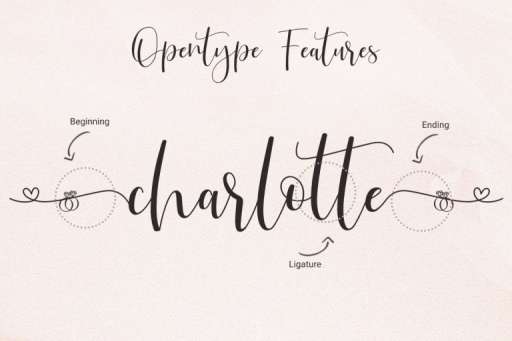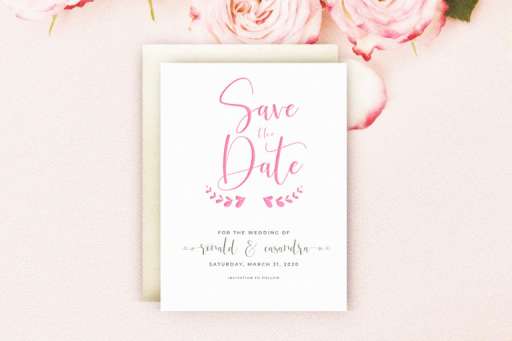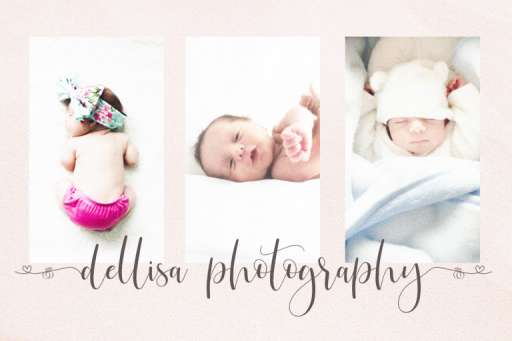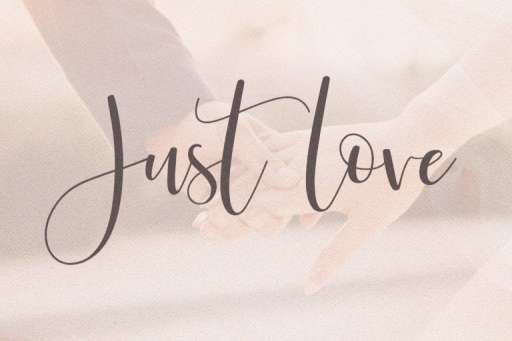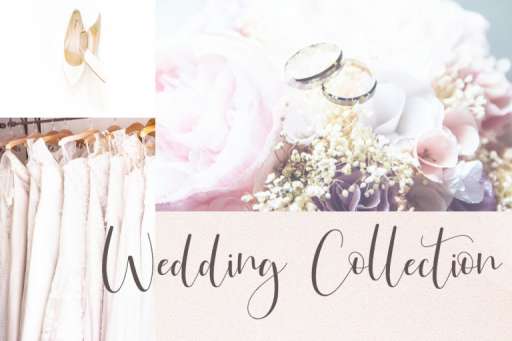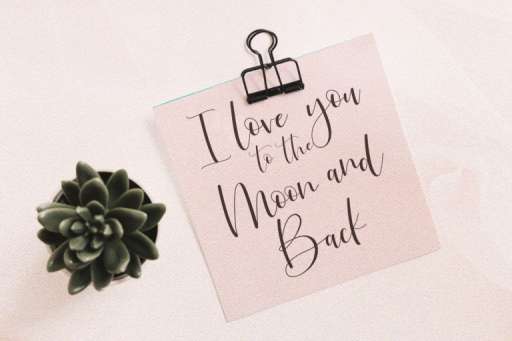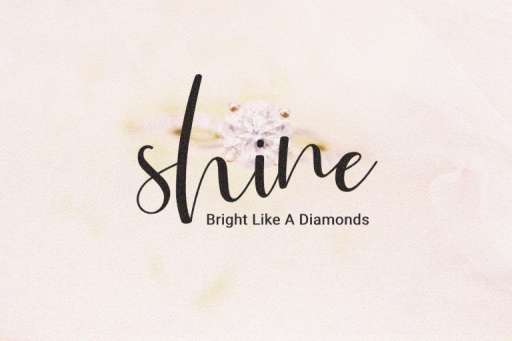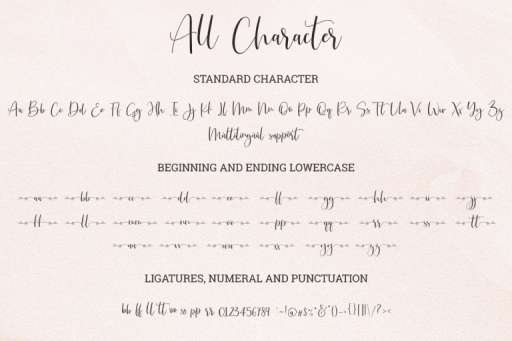
Just Love – Beautiful Script
Just Love is a hand drawn, elegant, modern calligraphic font perfect for wedding design projects, invitations, greeting cards, signatures, watermarks, logos, handwriting and anything to show your love. A script calligraphy font that is simple and easy to read, yet graceful enough for any important occasion.
Just Love Features :
- Basic Latin A-Z and a-z
- Numbers and punctuation
- Alternates
- Ligatures
- Begining and Ending Swashes
- Multilingual